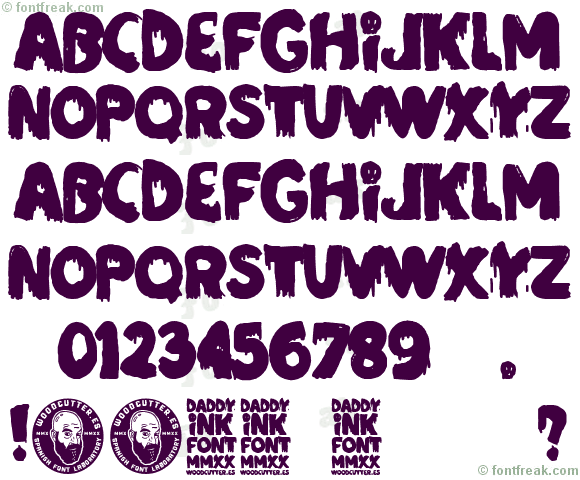
Daddy Ink
The Daddy Ink font by woodcutter Manero is a captivating display typeface that embodies a playful yet gritty aesthetic. This freeware font features a unique handwritten style characterized by uneven stroke weights that create a sense of spontaneity. The letters appear as if they were hastily painted, capturing the essence of ink splatters and brush strokes. The contrasting thick and thin lines provide visual interest, while the irregular spacing adds to its artistic charm. Daddy Ink is perfect for those seeking a font that stands out with a raw, expressive quality.
This font is particularly well-suited for a variety of creative uses. It can elevate wedding invitations, adding a touch of whimsy to the occasion. For movie posters, Daddy Ink can convey a sense of drama and excitement, making it an excellent choice for indie films or thrillers. Additionally, restaurant menus can benefit from its unique character, drawing attention to special dishes or themed events. Graphic designers will find it useful in creating eye-catching advertisements or promotional materials that require a bold statement. Content creators can also leverage this font in social media graphics, making their posts more engaging and visually appealing.
The target audience for the Daddy Ink font includes graphic designers, small business owners, and content creators looking for a distinctive typeface that resonates with their brand identity. With its artistic flair and versatile applications, this font leaves a lasting impression.
In conclusion, the Daddy Ink font stands out for its ability to combine an informal, artistic style with practical usability. Its free download option makes it accessible for projects of all kinds, allowing designers and creatives to infuse their work with personality and flair. Whether you are crafting an invitation or designing a poster, Daddy Ink is a font that can make your project truly memorable.